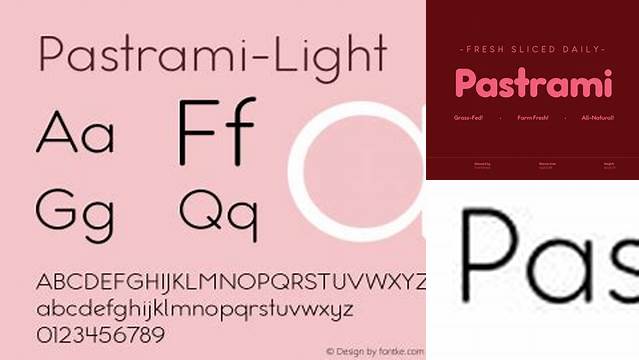
Hey guys! Are you on the hunt for a super cool, sleek font to spice up your design projects? Look no further! We're diving deep into the world of Pastrami Light, a font that’s been making waves in the design community. This guide will walk you through everything you need to know about Pastrami Light, where to find it for free (yes, you read that right!), and how to make the most of it in your projects. Let’s get started!
1. What is Pastrami Light Font?
So, what exactly is Pastrami Light font? Well, it’s a modern, sans-serif typeface that’s known for its clean lines and elegant simplicity. Think of it as the minimalist cousin of more traditional fonts. The “Light” in its name isn’t just for show; it has a delicate, airy feel that makes it perfect for a wide range of applications. Whether you’re designing a website, creating a logo, or crafting marketing materials, Pastrami Light can add a touch of sophistication without being too over-the-top. It’s versatile, readable, and oh-so-stylish, making it a favorite among designers and creatives alike. The subtle strokes and balanced letterforms give it a professional look, making your text stand out while maintaining clarity. This font is designed to be both visually appealing and highly functional, ensuring your message is conveyed effectively. When you need a font that speaks volumes through its simplicity, Pastrami Light is definitely one to consider. Its modern aesthetic fits well with contemporary design trends, allowing your work to stay current and relevant. Plus, the light weight of the font adds a touch of elegance that heavier fonts might lack, making it ideal for projects that require a delicate touch.
2. Key Features of Pastrami Light
Okay, so what makes Pastrami Light so special? Let's break down some of its key features. First off, its readability is top-notch. The clean, uncluttered design ensures that your text is easy to read, even at smaller sizes. This is super important, especially for things like body text on websites or in printed materials. Secondly, its modern aesthetic is a huge plus. Pastrami Light has a contemporary vibe that fits perfectly with today's design trends. It’s not too flashy, but it definitely has a distinct personality that can elevate your projects. Another great feature is its versatility. This font works well in a variety of contexts, from logos and headlines to body text and captions. You can use it for both digital and print designs, making it a true workhorse in your font library. Beyond its functional aspects, Pastrami Light also boasts a refined elegance that adds a touch of sophistication to any design. The subtle curves and balanced proportions create a harmonious look, making it pleasing to the eye. It's the kind of font that makes your work look polished and professional without feeling stuffy or outdated. The light weight of the font also contributes to its airy and open feel, making it a great choice for projects that require a modern and clean aesthetic.
6. Using Pastrami Light in Graphic Design Projects
Now for the fun part: using Pastrami Light in your graphic design projects! This font is incredibly versatile, so you can use it in a wide range of applications. For logos, Pastrami Light can provide a clean and modern look. Its simplicity makes it perfect for creating a logo that’s both memorable and professional. You can pair it with a bolder font for a nice contrast or use it on its own for a minimalist design. When it comes to websites, Pastrami Light is a fantastic choice for both headlines and body text. Its readability ensures that your visitors can easily read your content, and its modern aesthetic will give your site a polished look. In print materials, such as brochures or posters, Pastrami Light can add a touch of elegance and sophistication. Its clean lines make it easy to read, even at smaller sizes, and its versatile nature means it can work well in a variety of design styles. Consider using Pastrami Light for headings to draw attention and for body text to maintain clarity. You might also use it in captions or callouts to add a consistent and professional feel to your printed materials.
7. Pairing Pastrami Light with Other Fonts
One of the keys to great typography is pairing fonts effectively. Pastrami Light is versatile enough to work well with a variety of other fonts, but here are a few suggestions to get you started. For a classic and timeless look, try pairing Pastrami Light with a serif font like Garamond or Times New Roman. The contrast between the clean sans-serif of Pastrami Light and the more traditional serifs can create a visually appealing and balanced design. If you’re going for a more modern and minimalist look, you might pair Pastrami Light with another sans-serif font, but one that has a bit more weight or character. Fonts like Montserrat or Open Sans can be great choices. They share a similar aesthetic but offer enough contrast to keep things interesting. Another option is to pair Pastrami Light with a script or handwritten font for a touch of personality and flair. Just be careful not to overdo it; a little bit of script can go a long way. A script font like Brush Script or Pacifico can add a friendly and approachable vibe to your design, but it’s best used sparingly, such as in headings or accents, rather than for large blocks of text. When pairing fonts, it’s also important to consider the overall tone and message you want to convey.
8. Pastrami Light for Logos and Branding
When it comes to logos and branding, Pastrami Light is a solid choice. Its clean and modern design makes it perfect for creating a logo that’s both memorable and professional. A logo is often the first impression a business makes, so it needs to be clean, recognizable, and reflective of the brand's values. Pastrami Light fits this bill perfectly with its understated elegance and clarity. One of the great things about using Pastrami Light for logos is its versatility. It can work well for a wide range of industries, from tech startups to creative agencies. Its simplicity means it won't clash with other design elements and allows the brand's message to take center stage. For branding materials, Pastrami Light can be used consistently across all platforms to create a cohesive and professional look. This includes business cards, letterheads, websites, and social media graphics. Using the same font across all your branding materials helps to build brand recognition and reinforces your brand's identity. Consider using different weights or styles of Pastrami Light (if available) to create visual hierarchy and interest in your branding.
9. Websites and User Interface Design with Pastrami Light
In the world of web design, Pastrami Light shines as a font that’s both visually appealing and highly functional. A website's typography plays a crucial role in user experience, and choosing the right font can make or break your design. Pastrami Light is an excellent choice for website headers, body text, and navigation menus due to its readability and modern aesthetic. One of the key considerations for website typography is readability. Pastrami Light excels in this area thanks to its clean lines and well-defined letterforms. Whether used for long paragraphs of text or short snippets in a menu, it ensures that your content is easy to read on various screen sizes and resolutions. This is particularly important for maintaining user engagement and reducing bounce rates. Beyond readability, Pastrami Light’s modern design can help give your website a contemporary and professional look. Its simplicity pairs well with minimalist layouts and allows other design elements, such as images and colors, to stand out. In user interface (UI) design, Pastrami Light can be used to create a clean and intuitive experience. Its clarity makes it a great choice for buttons, labels, and other interactive elements.